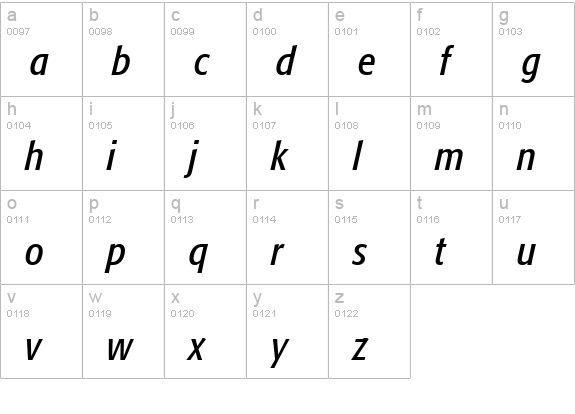
Formata Condensed Italic Font Details
Formata Condensed Italic is a distinctive, condensed-width, italic variant in the Formata typeface family \xE2\x80\x94 well suited to design and typography projects.
Formata Condensed Italic is a sleek and modern font that brings a touch of elegance to any design project. With its slanted and condensed style, this font exudes sophistication and professionalism. The italicized letters add a sense of movement and flair, making it perfect for adding emphasis or creating a dynamic visual impact. What sets Formata Condensed Italic apart is not just its stylish appearance, but also the fact that it is available for free download at FontsMarket.com. This means that you can easily access this premium font without any cost, making it a valuable addition to your font collection. Whether you're working on a branding project, a website design, or a print layout, Formata Condensed Italic is sure to elevate your work with its refined and contemporary look. Download it today and take your design projects to the next level!